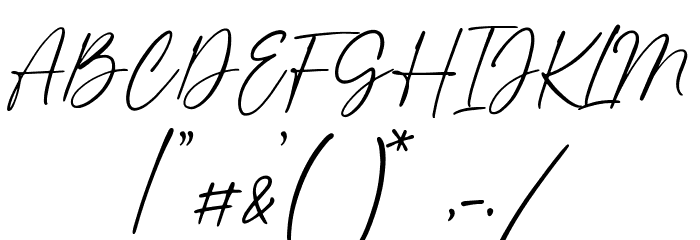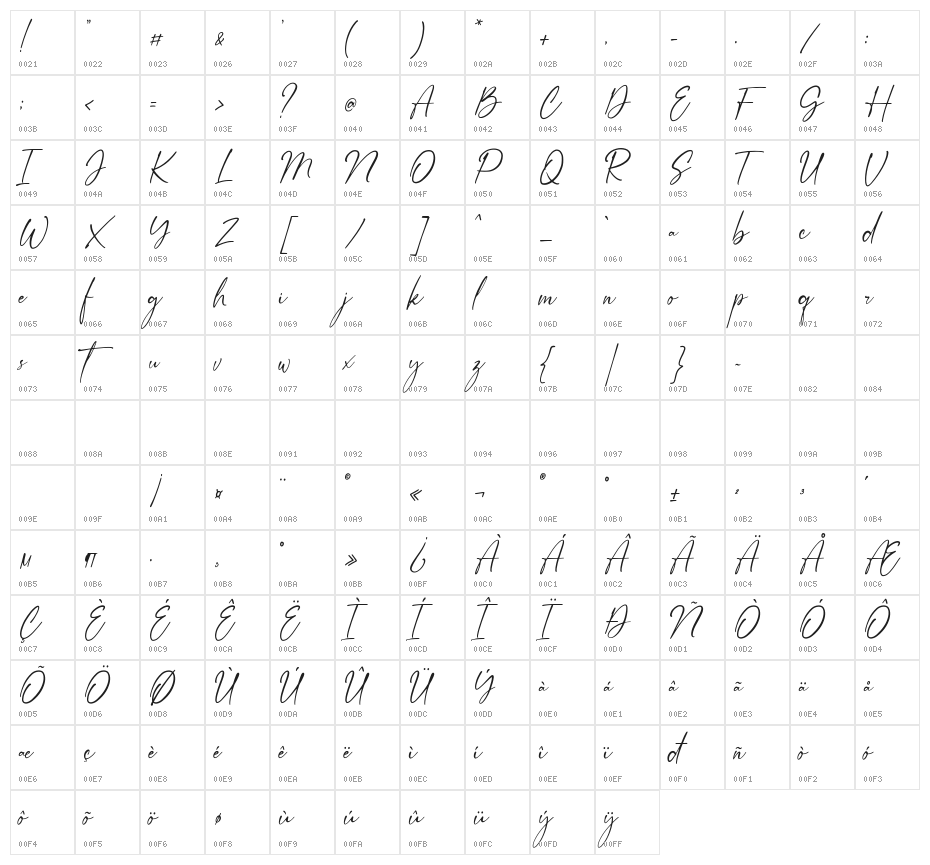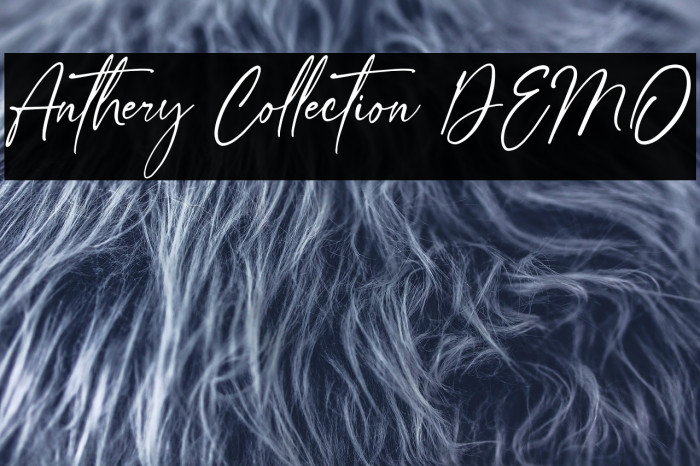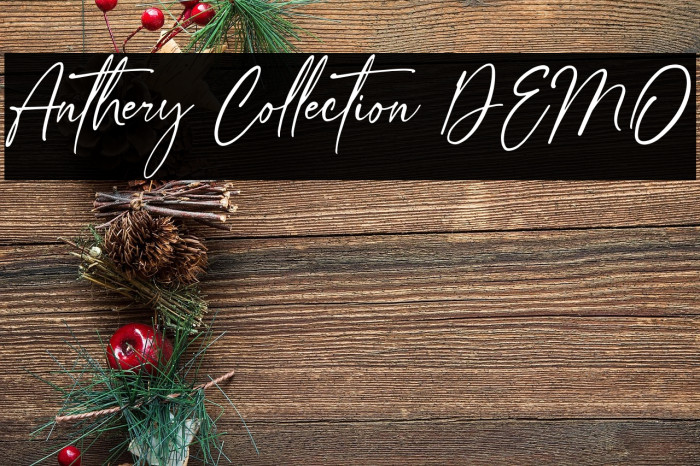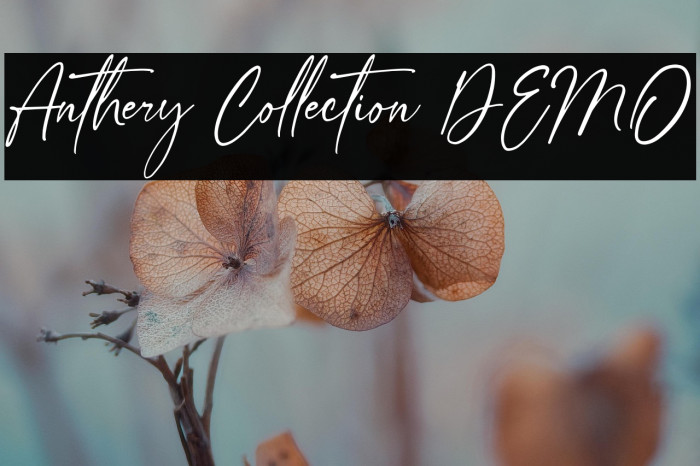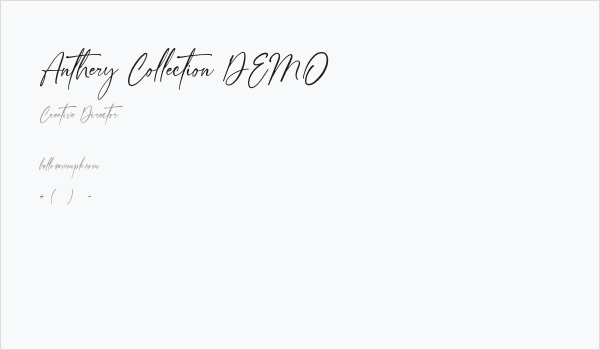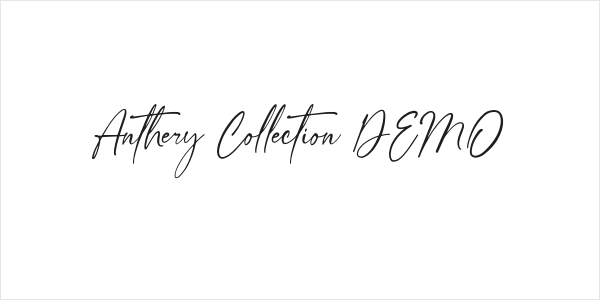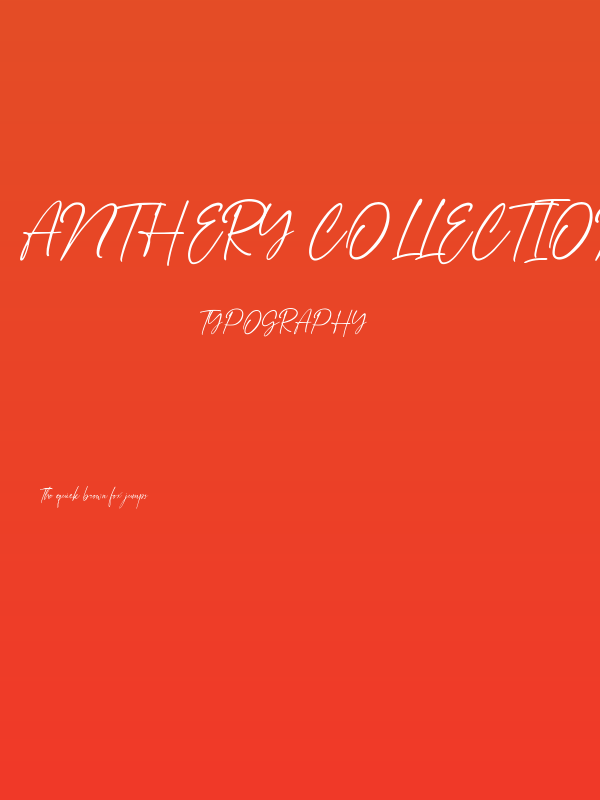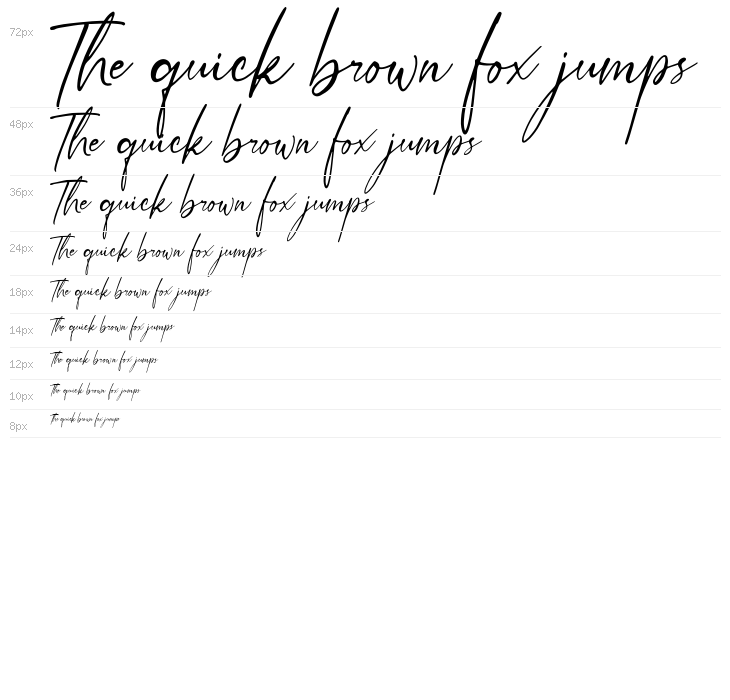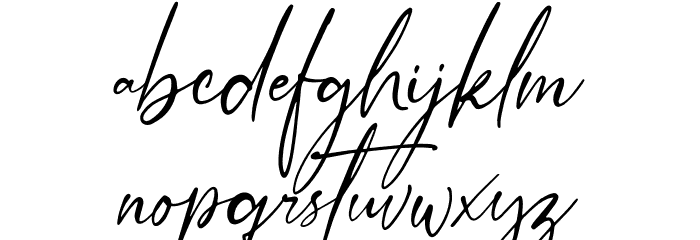
Anthery Collection DEMO Font
Anthery Collection DEMO Description
This font exudes a sophisticated and elegant style, characterized by its fluid, cursive script that mimics natural handwriting. The uppercase letters are tall and slightly slanted, giving a sense of movement and grace. The lowercase letters are more compact, with smooth, flowing connections between each character, enhancing the handwritten feel. The strokes are consistent in weight, providing a balanced and harmonious appearance. The font includes a full set of uppercase and lowercase letters, numerals, and a variety of special characters, making it versatile for different design needs.
| Proposed Projects | Ideal for wedding invitations, greeting cards, branding, and elegant logo designs. |